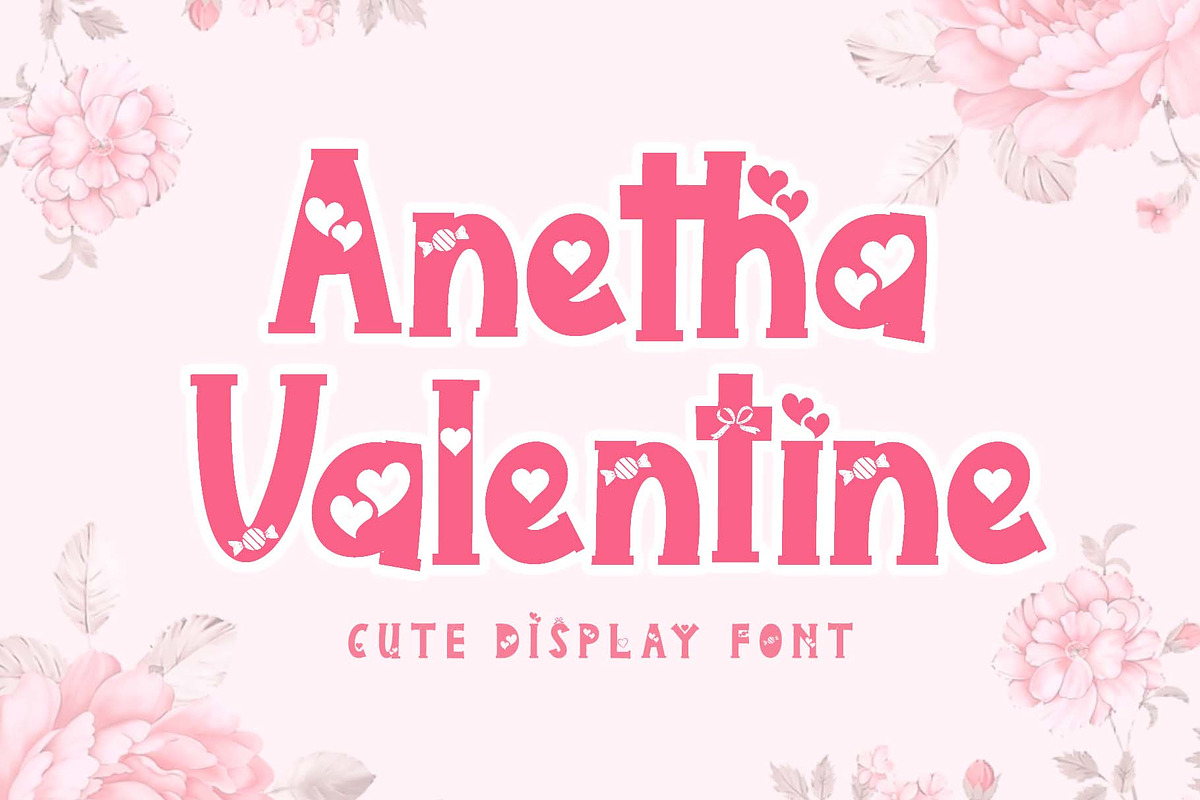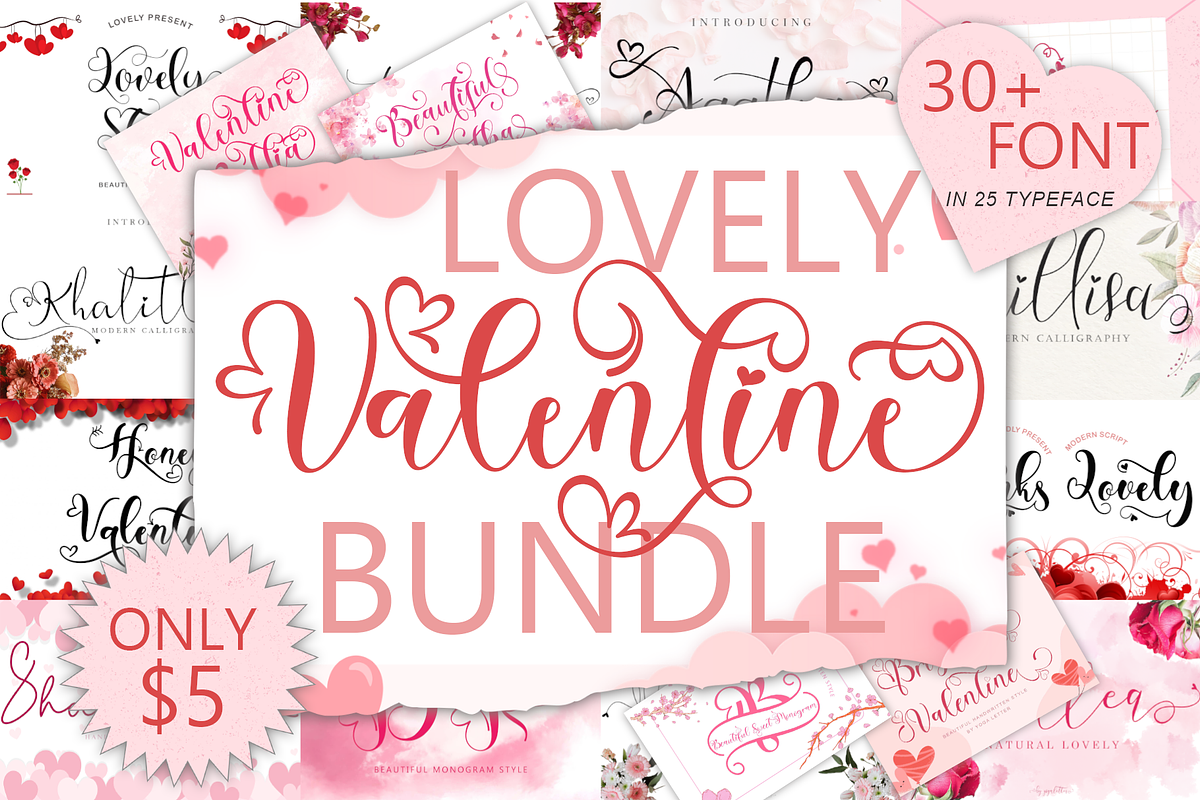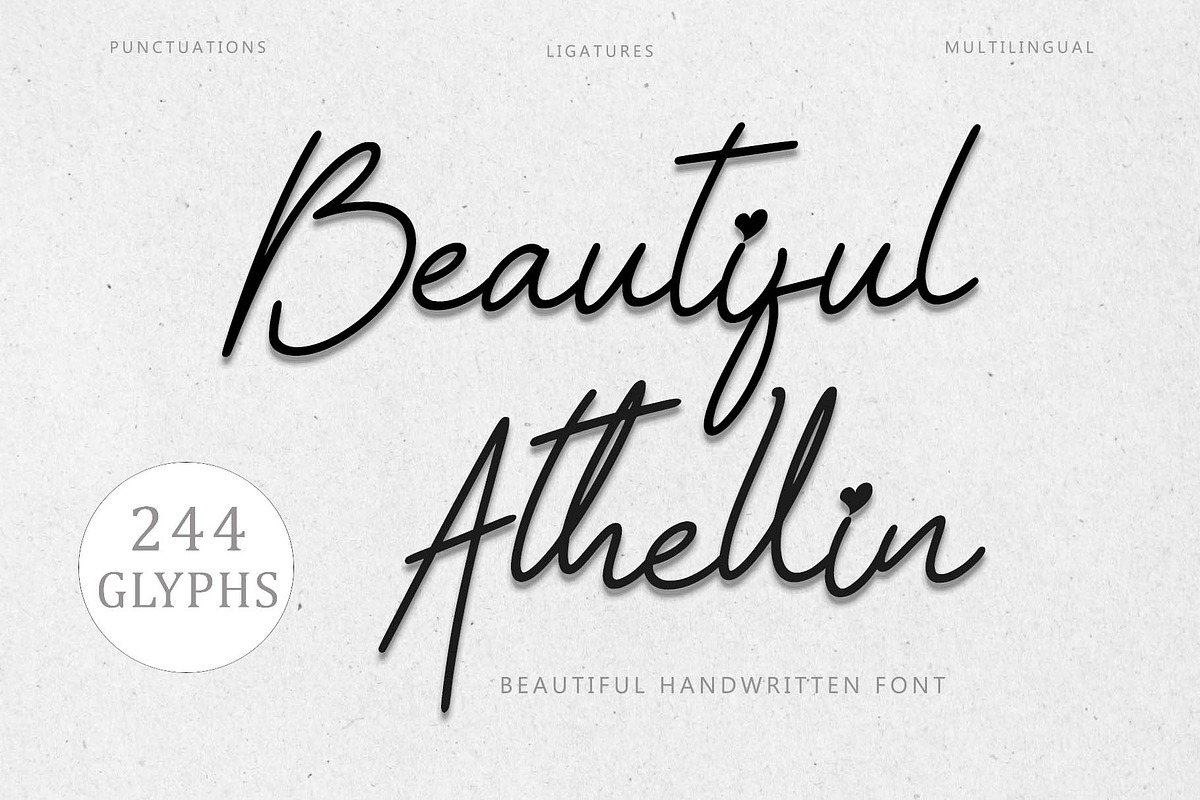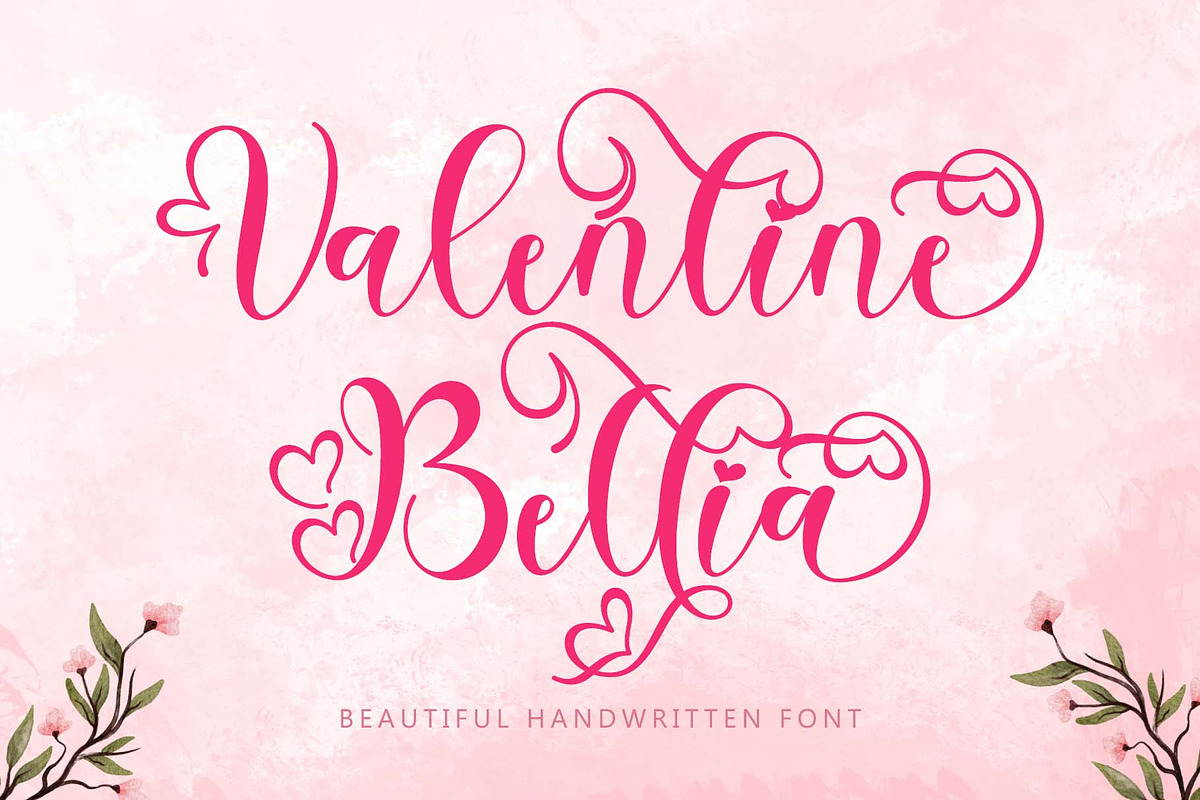
Valentine Lovely Bundle
This set includes 30+ font beautiful and popular fonts in 25 typeface !!!
Valentine Bellia
Brigitha Valentine
Art Valentine
Beautiful Agatha
Beautiful Athellin
Beautiful Claudia
Beautiful Romantic Monogram
Anetha Valentine
Agatha
Dainty Valentine Monogram
Emillisa
Honey Valentine
Khalitta
Lovely Style
Madelline
Meillea
Pink Valentine
Pretty Willie
Shalitta
Rossaline
Sanantha
Shamilove
Thanks Lovely
Amelline
Valentine Moon